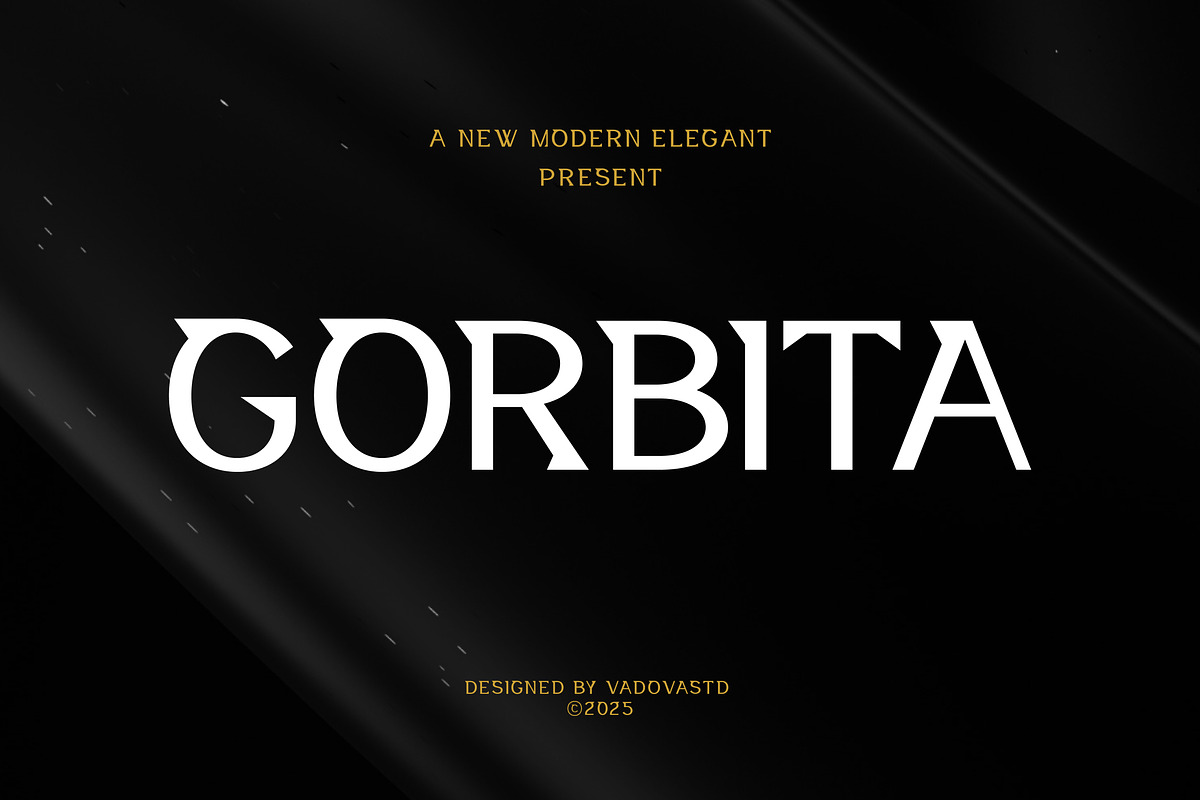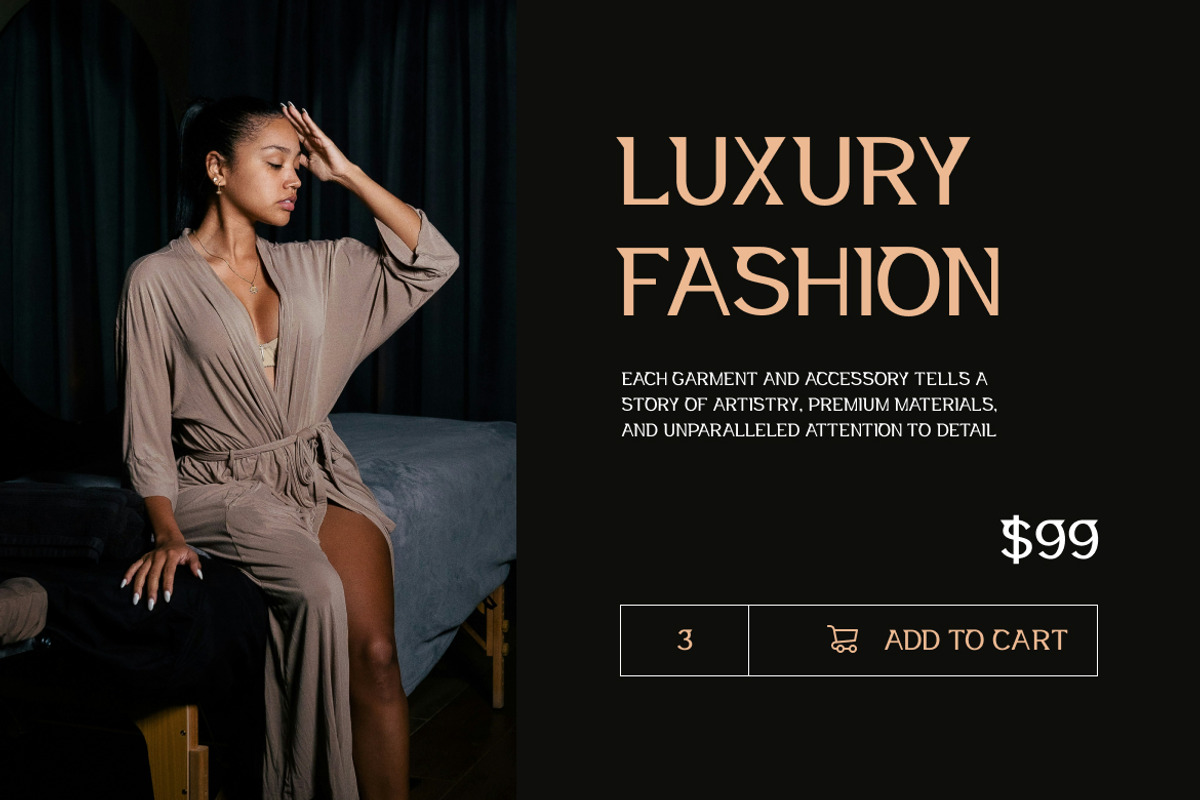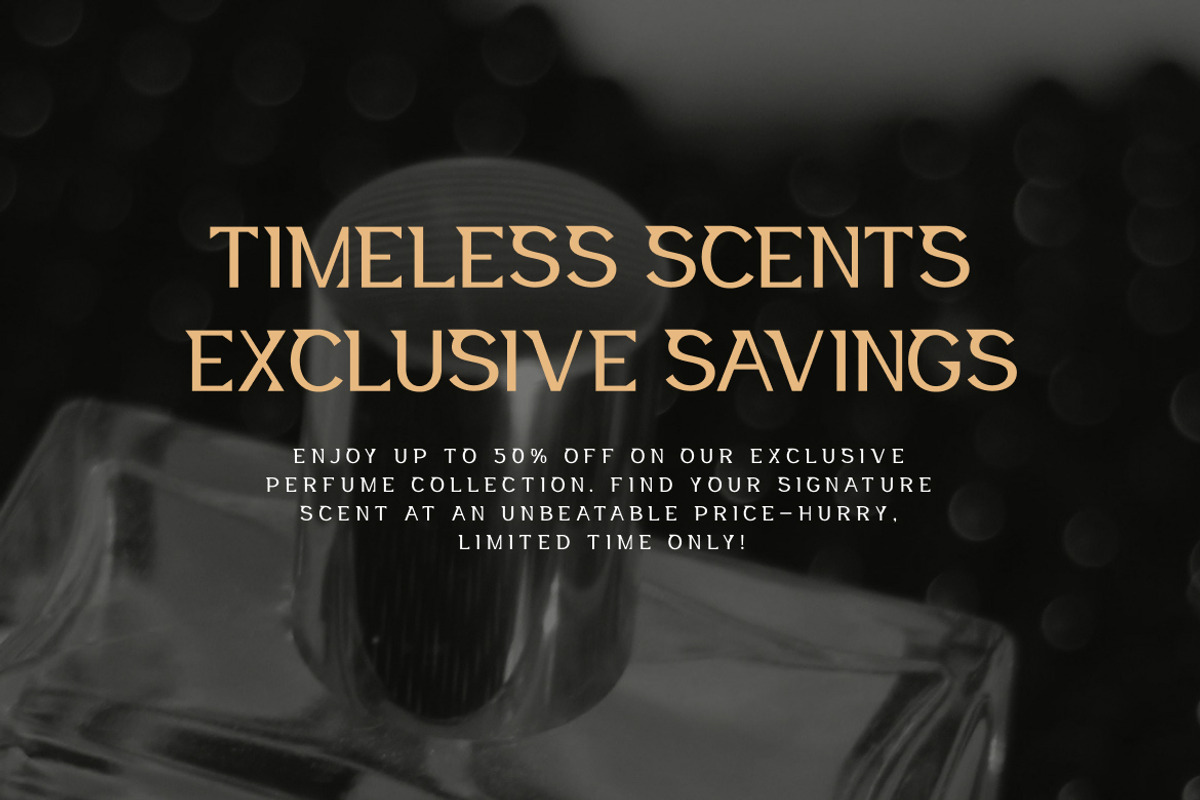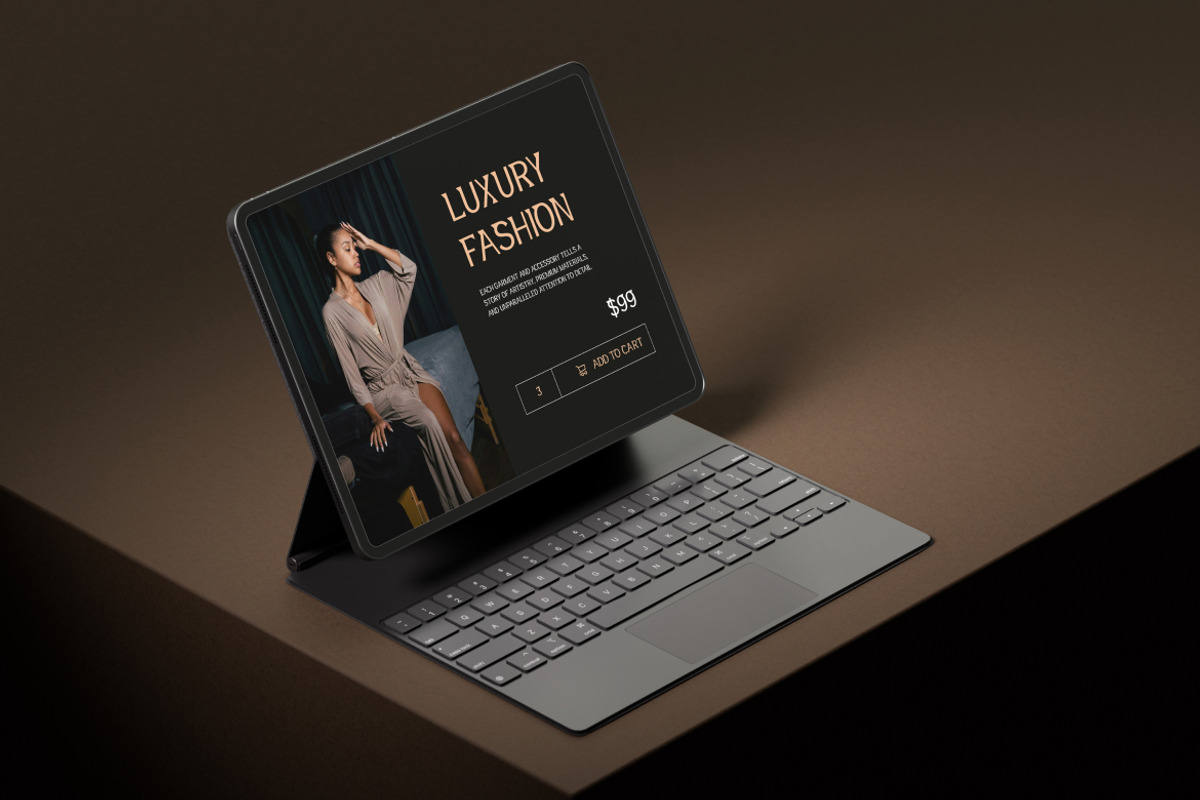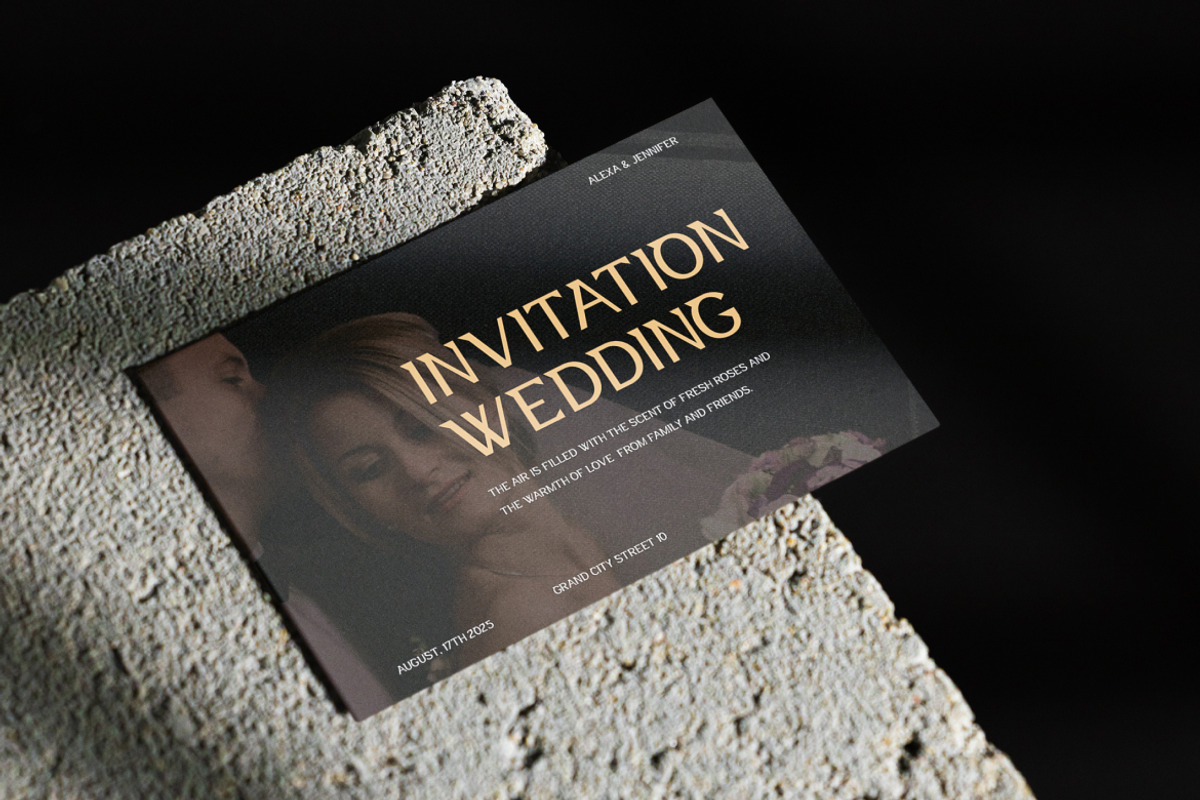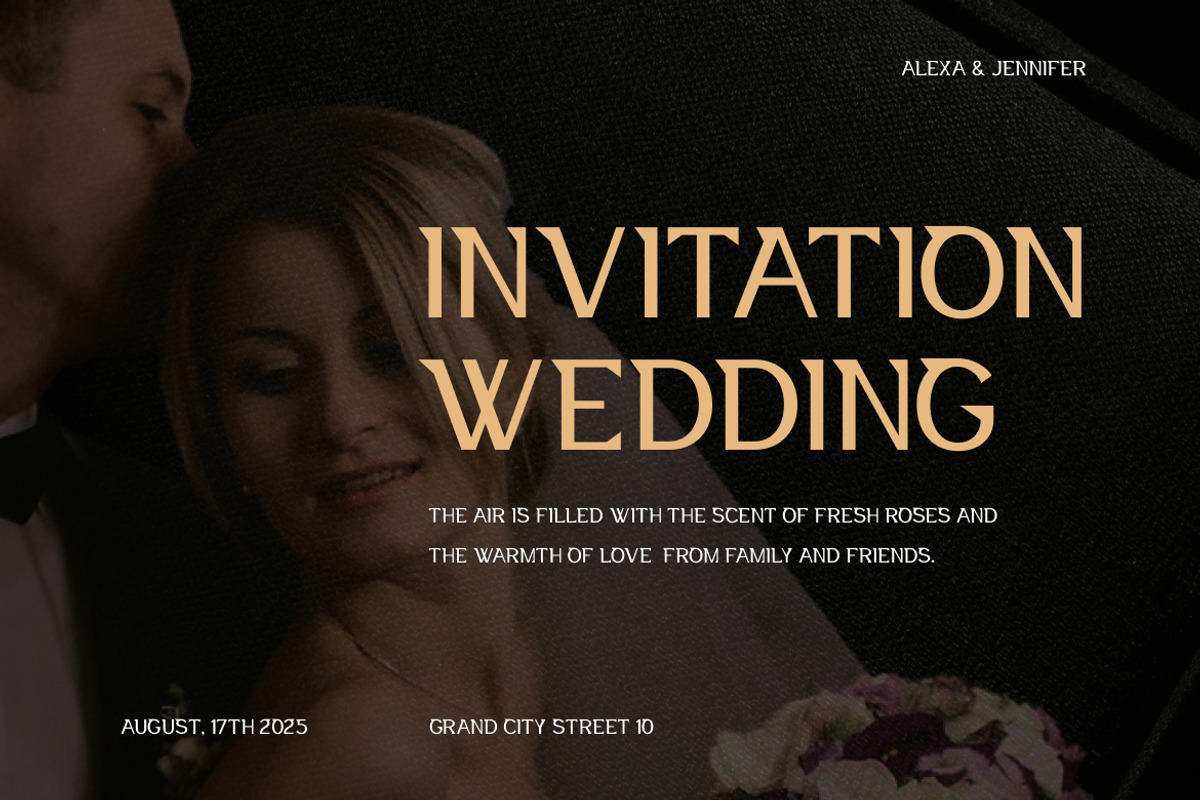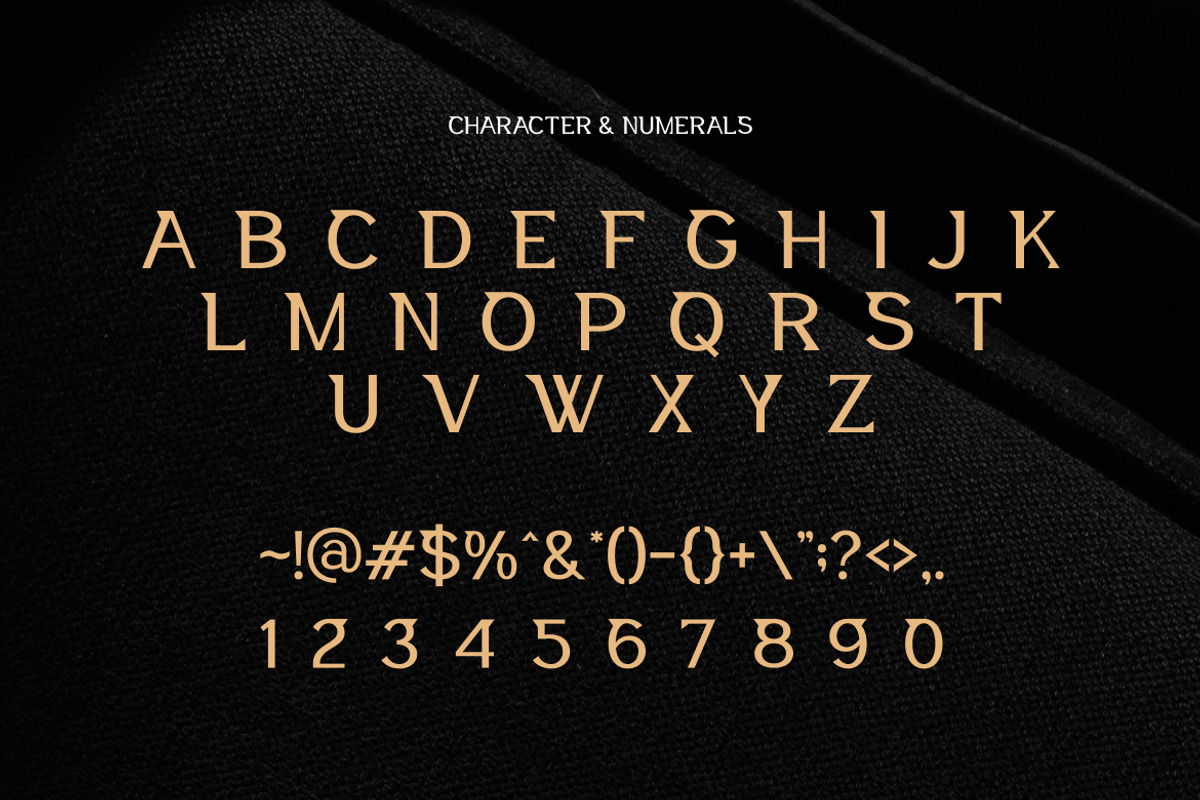
Gorbita – Modern Elegant Serif
Gorbita is a modern elegant serif font designed to bring timeless sophistication to your projects. With sharp serifs, clean cuts, and refined curves, this typeface carries a sense of authority and style while maintaining readability. Its letterforms are structured with precision, blending classical serif traditions with a modern twist that feels both luxurious and versatile.
Perfect for designers who want their work to exude professionalism and elegance, Gorbita works beautifully across branding, fashion campaigns, editorial layouts, high-end packaging, and digital marketing. Its bold yet graceful presence ensures that every headline, logo, or title makes a lasting impression.
Gorbita doesn’t just fill space—it defines identity. From minimal corporate aesthetics to luxurious design projects, this serif font elevates typography into a statement of elegance.
Why Designers Love Gorbita
Modern serif with sharp, refined details
Elegant aesthetic perfect for luxury and fashion branding
Professional structure while staying stylish and distinctive
Versatile use across digital and print designs
Balances authority with sophistication
Elegant serif style with modern refinements
Best Use Cases
Luxury branding & identity design
Fashion campaigns & editorial magazines
Premium packaging & product labels
High-impact advertising & marketing materials
Website headers & corporate presentations
Elegant wedding invitations & stationery